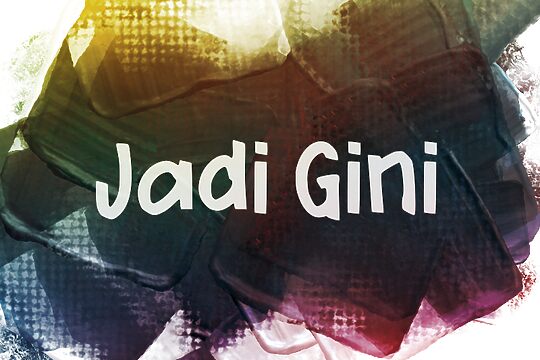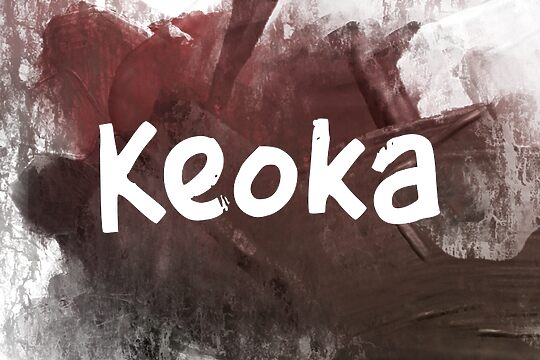
Doodge font by Almaz Studio is a free comic font whose letters are energetic, friendly, and youthful. Overall, the font is modern, vibrant, and playful with a colorful and whimsical character that immediately draws the viewer’s attention. The graphic alphabet has several characteristics of a traditional comic font, but with a modern twist. In addition to alphanumerical letters, Doodge incorporates other characters such as signs, symbols, and more.
Use the free font for posters and flyers, environmental design, packaging, book covers, movie titles, and social media. It will also look great on websites and mobile apps, advertising banners, album covers, branding, and even printed goodies such as badges and pins.